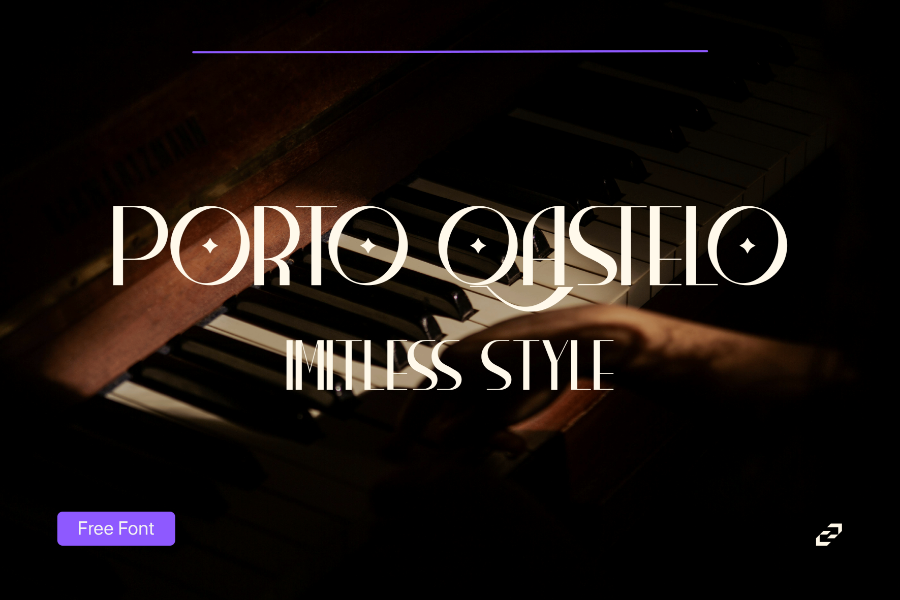
Porto Qastelo - Elegant Modern Display Font for Luxury Logos & Titles
A classy sans-serif with tall pillars and stylish letterforms—perfect for upscale branding, fashion, and magazine covers.
Style: Elegant Serif
Weights/Styles: Regular (Single Weight)
Best For: Upscale packaging, high-end branding, fashion, creative portfolios.
Key Features:
- Elegant serif structure
- Refined details for a premium feel
- Excellent in large display settings